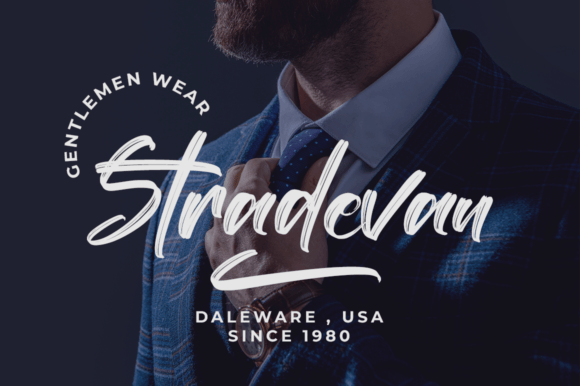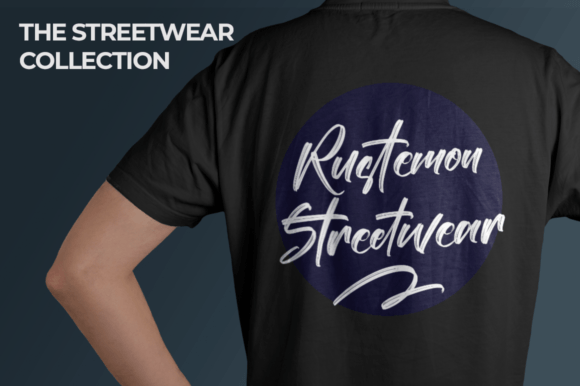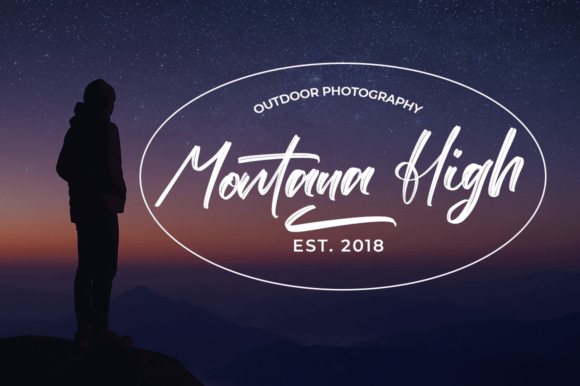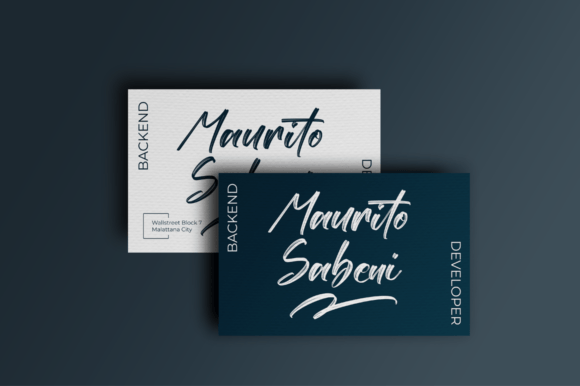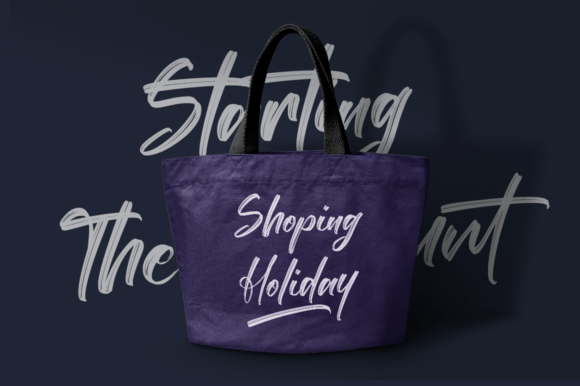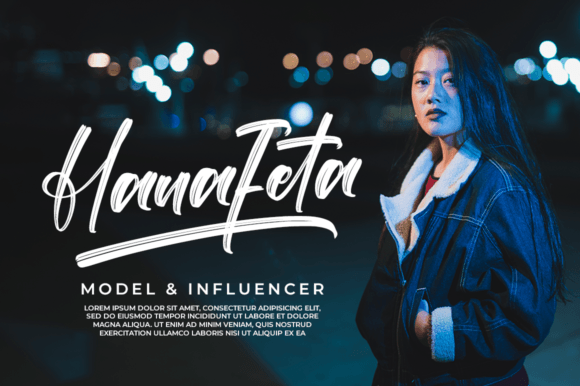
Introduction to Riveraland Font
As a designer, you know the thrill of hitting that creative sweet spot – when a project comes together, and every element feels like it was meant to be. It’s a moment of pure magic, and it’s exactly what you’ll experience when you add the Riveraland Font to your design arsenal.
This gorgeous and bold brush handwritten font is more than just a pretty face – it’s a game-changer. With its strong, confident, and dynamic feel, Riveraland Font is the perfect addition to any design project that needs a stylish touch. Whether you’re working on a logo, headline, or creative project, this font is sure to elevate your design and leave a lasting impression.
What’s more, Riveraland Font is PUA encoded, making it easy to access all of the glyphs and swashes you need to bring your design to life. And the best part? It’s a high-quality design resource that’s available for free download, giving you the freedom to experiment and push the boundaries of your creativity.
Key Features of Riveraland Font
- High-quality design resource ideal for creative projects, such as logos, posters, and infographics.
- Features a unique, hand-drawn style that adds a touch of personality to any design project.
Honest Review: Riveraland Font
I recently stumbled upon the Riveraland Font, and I must say it’s a great addition to any designer’s arsenal. The font is free to download, making it an excellent resource for those on a budget. Its high quality and unique design make it perfect for creative projects that require a touch of elegance.
Here are some of the things that work well for me:
- ✨ Unique design that stands out from the crowd
- ✨ High quality, making it perfect for printing and digital use
- ✨ Transparent background, allowing for easy background removal
- ⚠️ Limited character set, which may not be ideal for longer texts
- ⚠️ Not suitable for use as a default font due to its unique design
Overall, I’m impressed with the Riveraland Font. Its unique design and high quality make it a great resource for designers working on creative projects. While it has some limitations, it’s definitely worth considering for your next project.
Some tips for getting the most out of the Riveraland Font include using it in conjunction with a transparent background to create a clean and modern design. Common use cases for the Riveraland Font include branding, marketing materials, and creative projects. With its high quality and unique design, the Riveraland Font is a great addition to any design resource library.
Alternatives to Riveraland Font
Great Vibes Font is a high-quality script font that can be used for various design projects. It features a transparent background, making it ideal for creative projects that require a subtle and elegant touch. When to use: wedding invitations, greeting cards, and other formal events. How it compares to Riveraland Font: Great Vibes Font has a more elegant and refined feel, while Riveraland Font has a more playful and casual vibe.
Dancing Script Font is a beautiful and elegant script font that is perfect for design projects that require a touch of sophistication. It features a transparent background and is available for free download, making it a great resource for designers. When to use: business cards, brochures, and other marketing materials. How it compares to Riveraland Font: Dancing Script Font has a more formal and polished feel, while Riveraland Font has a more casual and playful vibe.
Carolyna Pro Font is a high-quality script font that features a transparent background and is ideal for creative projects that require a touch of elegance. When to use: fashion magazines, beauty products, and other luxury brands. How it compares to Riveraland Font: Carolyna Pro Font has a more refined and sophisticated feel, while Riveraland Font has a more playful and casual vibe.